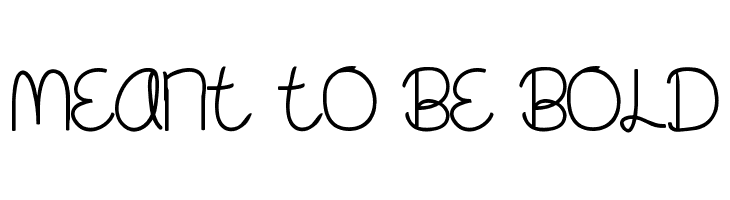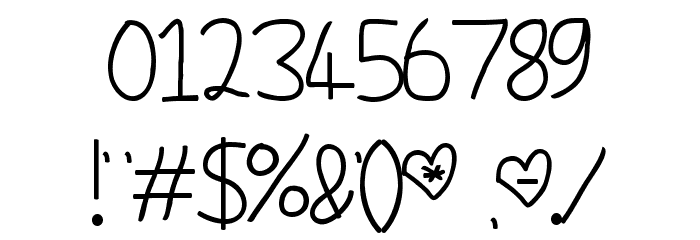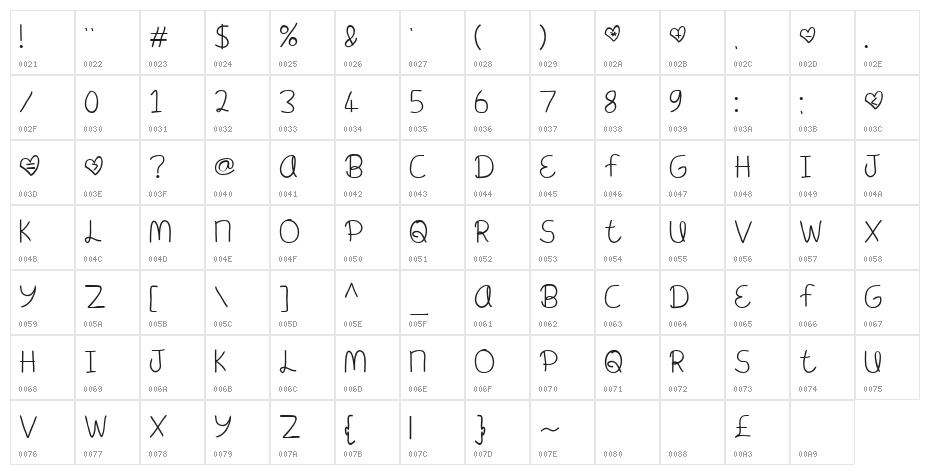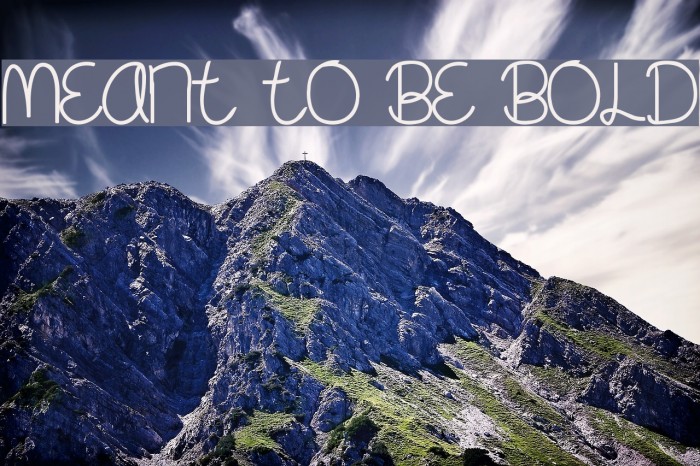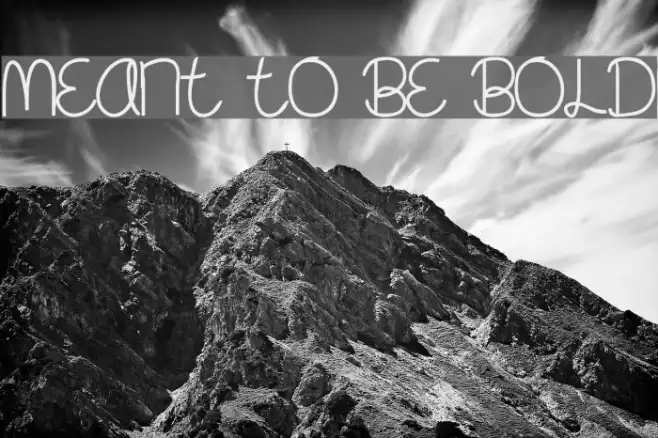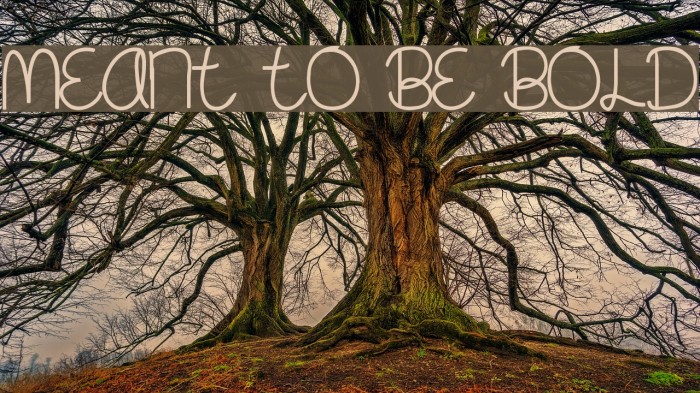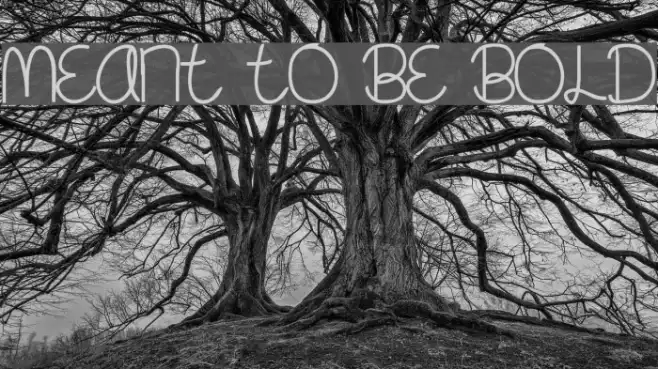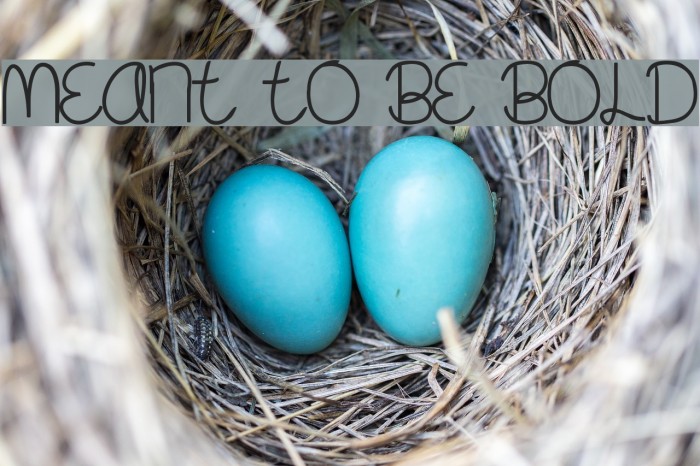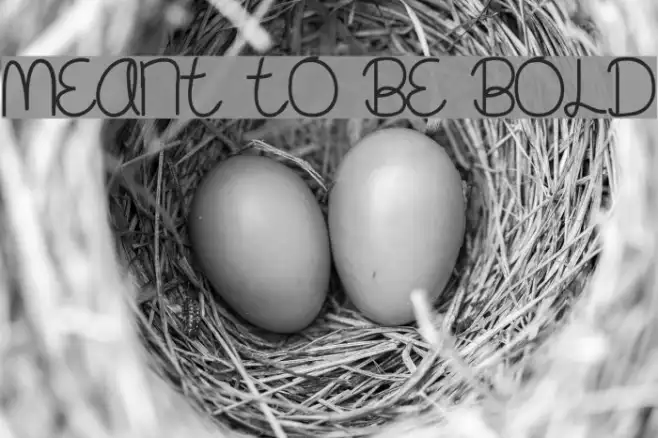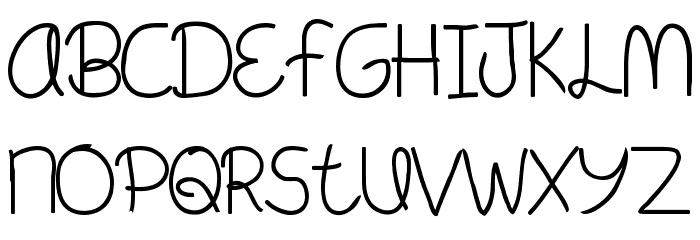
Meant To Be Bold Font
Meant To Be Bold Description
This font features a playful and whimsical design with a handwritten style. The characters are rounded and slightly irregular, giving a casual and friendly appearance. The uppercase and lowercase letters maintain a consistent flow, while the numbers and special characters integrate seamlessly with the overall aesthetic. The font's strokes are uniform in width, contributing to its approachable and informal look. It's perfect for projects that require a touch of personality and charm, such as children's books, greeting cards, or playful branding.
Overall StylePlayful
Use CaseHeadlines, Logos, Informal Text
Proposed ProjectsIdeal for children's books, greeting cards, playful branding, and informal invitations.